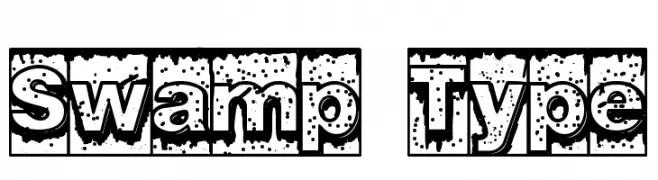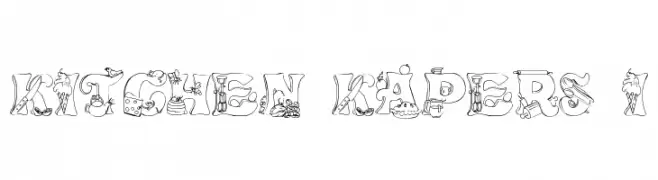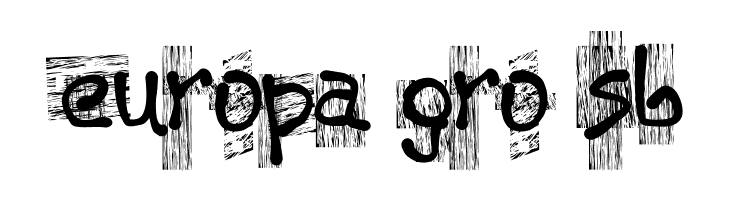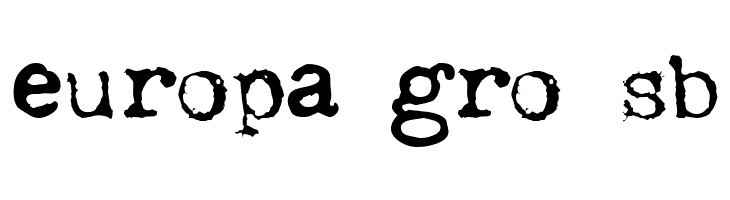
A bold, brushstroke font with a dynamic and textured appearance.
A bold, decorative font with a swamp-like texture and organic, rugged appearance.
A bold, distressed font with a vintage, typewriter-inspired style.
A distressed, vintage serif font with a textured, weathered look.
A distressed, grungy font with a vintage, textured appearance.
A vintage typewriter-style font with bold, textured characters.
A distressed, vintage serif font with a rugged texture.
A bold, distressed font with a rugged, grunge aesthetic.